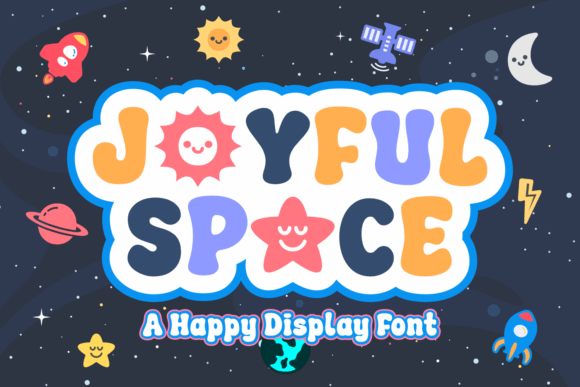
Introducing Joyful Space Font, the ultimate font for adding a dash of fun and whimsy to your designs! Created by the talented Rizkky from 7NTypes, this display font is a must-have for anyone looking to capture the essence of joy and happiness.
With its cheerful and lighthearted style, Joyful Space Font is the perfect choice for a wide range of projects. Whether you're designing children's books, creating party invitations, or simply need to infuse a touch of playfulness into any project, this font has got you covered.
But what sets Joyful Space Font apart from the rest? Well, let us tell you! This font is not only visually captivating, but it also comes with a PUA encoding. What does that mean for you? It means easy access to all glyphs and swashes effortlessly! No more struggling to find the perfect accent or special character – Joyful Space Font has it all.
Imagine the smiles you'll spread when your audience sees your designs adorned with this delightful typeface. Each letter is carefully crafted to evoke feelings of joy and happiness, making it impossible for anyone to resist its charm. Your projects will stand out from the crowd and leave a lasting impression on anyone who lays eyes on them.
But that's not all – Joyful Space Font is not just a font, it's a statement. It's a way to express your creativity, your love for design, and your desire to make a lasting impact. With this font, you'll not only elevate your designs but also elevate the mood of anyone who interacts with them.